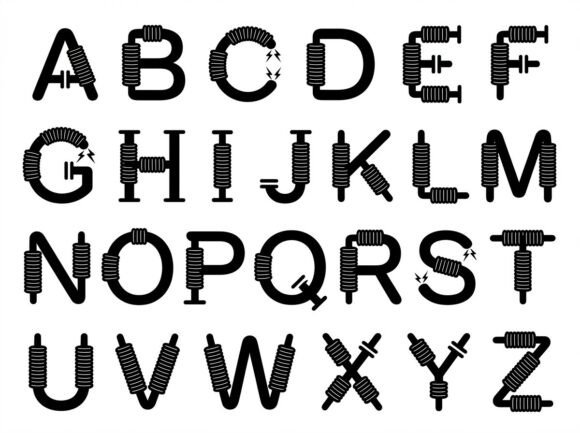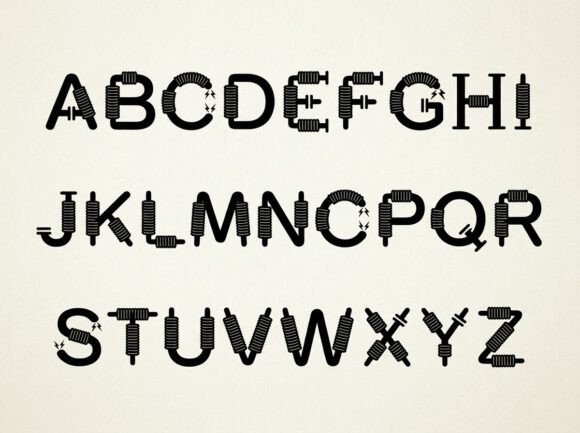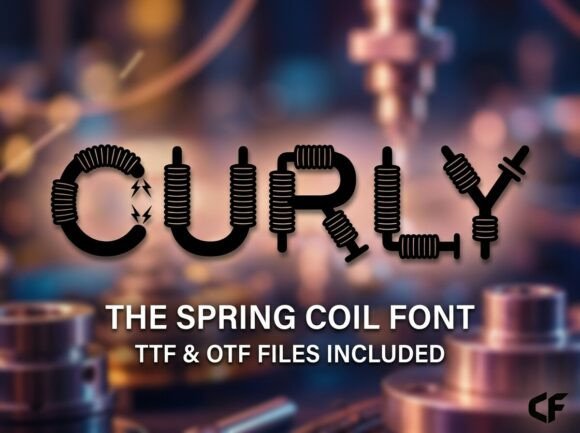
Unleash Industrial-Strength Impact with Curly Font
Are you tired of using ordinary fonts that fail to capture the essence of your design? Look no further than Curly, a revolutionary display font that draws inspiration from mechanical springs and electrical components. This one-of-a-kind typeface is engineered to deliver a bold, industrial aesthetic that’s perfect for designers and crafters seeking to make a statement.
The Inspiration Behind Curly
Curly’s design is rooted in the world of mechanics and electronics. Every character in this font is meticulously constructed from stylized coiled wire, complete with “sparking” terminals and realistic winding details. This attention to detail creates a sense of mechanical precision and high-tension energy, making Curly an exceptional choice for engineering branding, automotive graphics, electrical repair services, and tech-focused social media headers.
Key Features of Curly Font
• Industrial Aesthetic: Curly’s bold, monoline structure ensures excellent legibility while maintaining a heavy industrial look that’s perfect for designs that require a strong, technical feel.
• Mechanical Precision: The font’s wire-inspired design elements, including coiled wire and sparking terminals, evoke a sense of mechanical precision and attention to detail.
• High-Tension Energy: Curly’s unique design injects a sense of high-tension energy into your designs, making it perfect for projects that require a dynamic, attention-grabbing approach.
• Exceptional Legibility: Despite its bold, industrial aesthetic, Curly remains highly legible, making it suitable for use in a wide range of applications, from logos and headers to signage and marketing materials.
Use Cases for Curly Font
Curly’s versatility makes it an excellent choice for a variety of design projects, including:
• Engineering Branding: Create a strong, professional identity for your engineering firm or project with Curly’s bold, industrial aesthetic.
• Automotive Graphics: Add a touch of high-performance style to your automotive designs with Curly’s sleek, technical look.
• Electrical Repair Services: Establish a reputation for expertise and reliability with Curly’s precise, mechanical design.
• Tech-Focused Social Media Headers: Elevate your social media presence with Curly’s dynamic, attention-grabbing style.
Design Tips and Tricks
To get the most out of Curly, consider the following design tips:
• Experiment with Color: Curly’s bold design looks great in a variety of colors, from metallic tones to bright, bold hues.
• Play with Texture: Add depth and interest to your designs by combining Curly with textured backgrounds or overlays.
• Mix and Match: Don’t be afraid to combine Curly with other fonts to create a unique, visually appealing typography scheme.
Curly font is a game-changer for designers and crafters seeking to add an industrial-strength impact to their work. With its unique, wire-inspired design and exceptional legibility, Curly is the perfect choice for a wide range of projects, from engineering branding to tech-focused social media headers. So why settle for ordinary fonts when you can wire your designs with Curly’s bold, technical style?